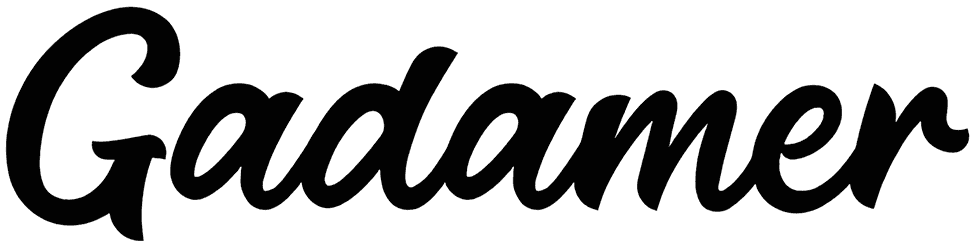
Gadamer Font
Gadamer is a very valuable option to add to your collection of script fonts. Using this font, you can touch your audience’s personal feelings and engrave your message deep in their hearts. Although Gadamer does not include numbers, it can be useful for writing quotes on social media posters, tattoos, T-shirt printed texts, and designing a special logo.